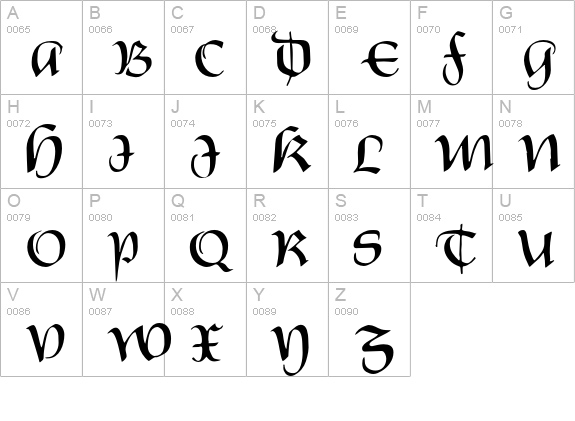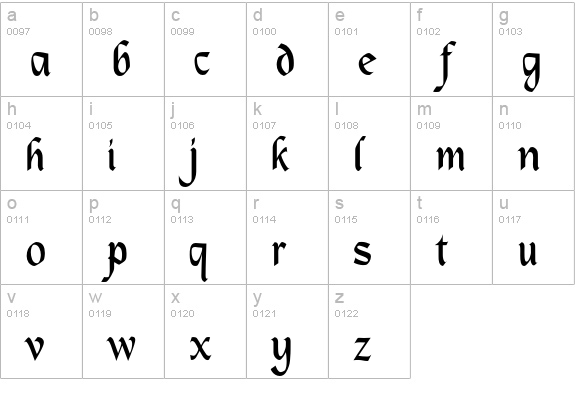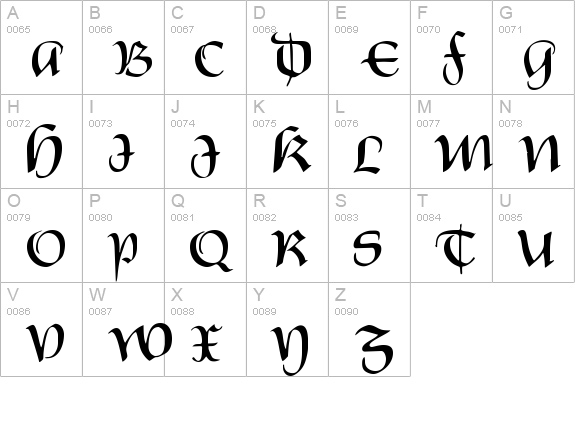
Castiglione Font Details
Castiglione font is a timeless and elegant typeface that exudes sophistication and class. With its delicate serifs and graceful letterforms, this font is perfect for adding a touch of refinement to any design project. Whether you're creating wedding invitations, branding materials, or editorial layouts, Castiglione font will elevate your work with its understated beauty. What sets Castiglione font apart is its versatility - it can be used for both headlines and body text, making it a truly versatile choice for designers. The clean lines and balanced proportions of this font ensure readability and legibility in any context. Best of all, Castiglione font is available for free download at FontsMarket.com. This means you can easily access this stunning font and incorporate it into your designs without any cost. Don't miss out on the opportunity to enhance your projects with the timeless elegance of Castiglione font. Download it today and elevate your design work to new heights.